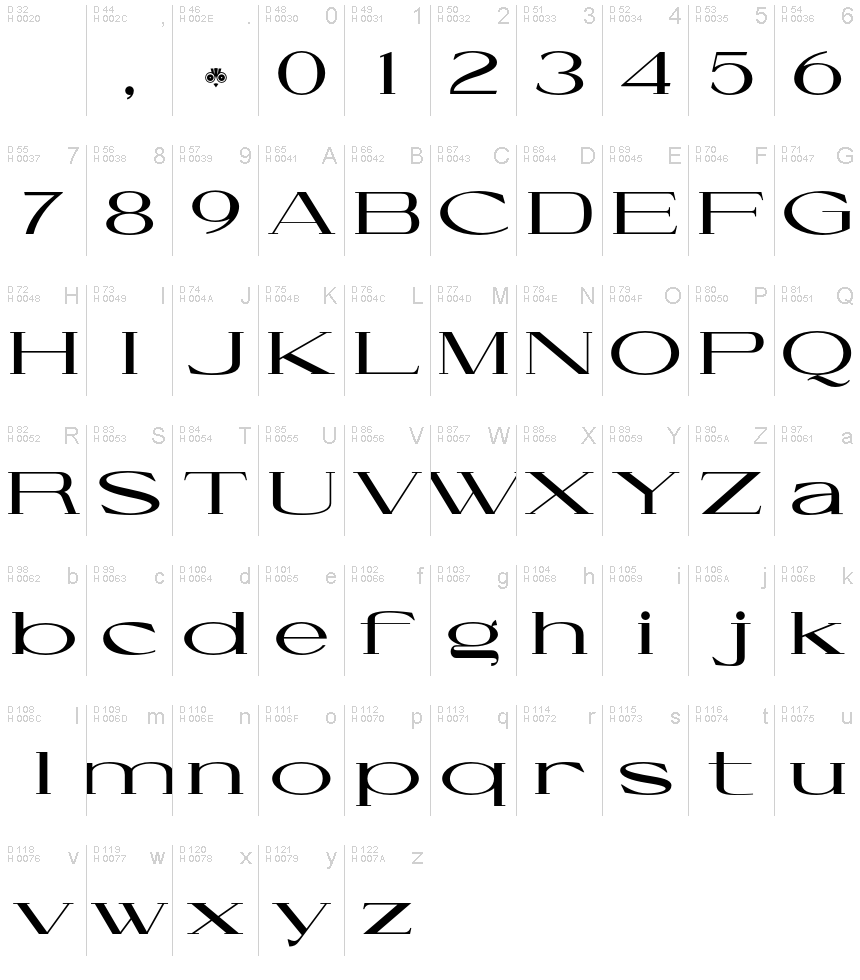
Cellofy ExtBd ExtExp font from the Cellofy family by Owlking Project is a striking serif typeface with expanded width, designed to captivate and impress. Its bold, extended characters exude elegance and sophistication, making it an ideal choice for eye-catching headlines and luxurious branding. This free font is perfect for personal use in projects that demand attention, such as editorial designs, posters, or high-end marketing materials.
Cellofy ExtBd ExtExp